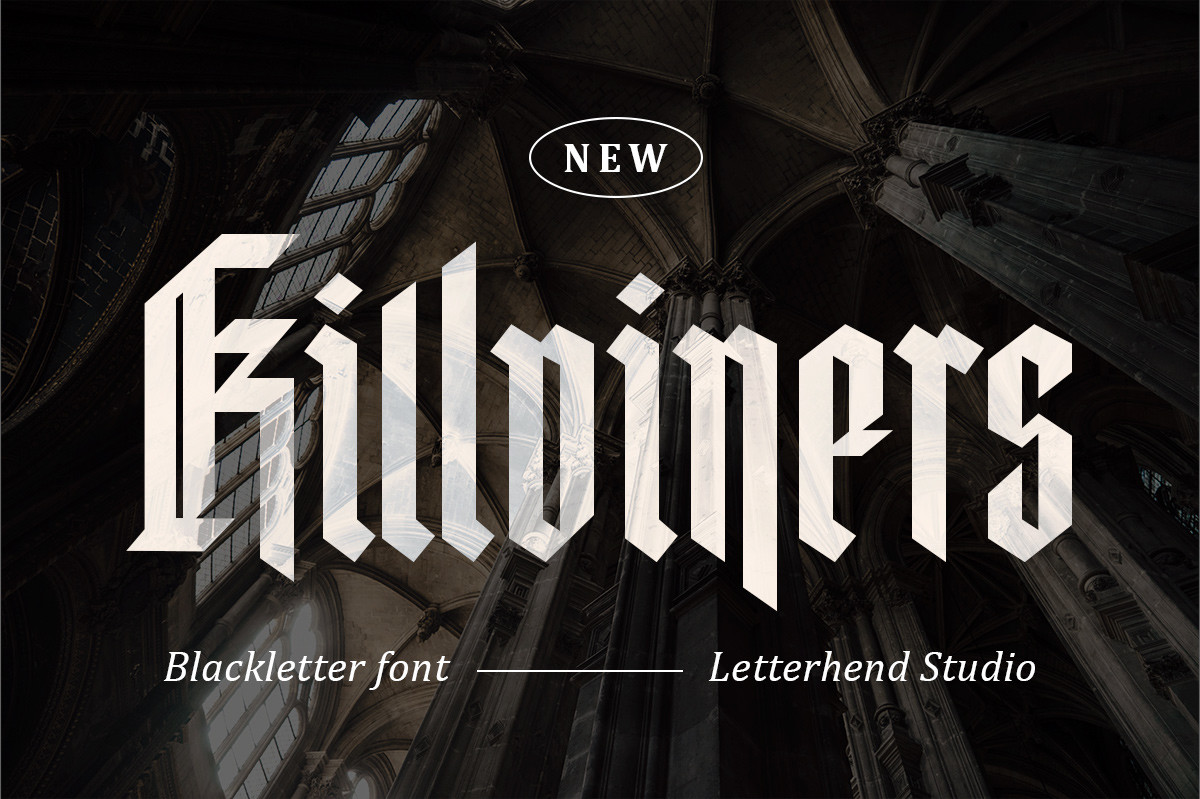
Killviners Font
The Killviners Font is a powerful and edgy typeface designed for projects that need a raw, rebellious aesthetic. With its bold character and a distressed, grunge-inspired feel, this font is perfect for a wide range of applications, including rock band logos, horror movie posters, gaming titles, and dynamic t-shirt designs. It's an excellent choice for branding that wants to feel unfiltered and aggressive, and it works wonderfully for headlines, album art, and packaging that demand a strong, impactful presence. The Killviners Font has an uncompromising style that makes it the ideal tool for any creative professional looking to break away from the ordinary.
What makes the Killviners Font so exciting is its raw energy and undeniable attitude. This font isn’t about being clean or polished; it’s about making a statement with its rough edges and powerful letterforms. It captures the essence of street art and counter-culture, giving your text a sense of authentic rebellion that is hard to ignore. The subtle details and textured look of the font ensure that it stands out, creating a memorable visual identity for any brand or project. The Killviners Font is a tool for conveying power and intensity, making it a perfect choice for designs that aim to be bold and unforgettable.
The Killviners Font family is typically comprehensive, offering a full set of uppercase and lowercase letters, numbers, and punctuation. For a font with such a specific aesthetic, you might also find that it includes different stylistic versions, such as a clean style and a more distressed or textured one. This provides designers with the flexibility to choose the level of grit and intensity they want for their project. The extensive character set and bonus features often included in the package ensure you have all the tools you need to create a complete and cohesive visual identity.